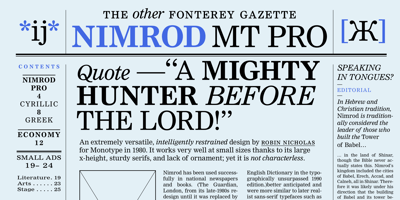
Nimrod
Nimrod font
Nimrod Font Family was designed by Robin Nicholas and published by Monotype. Nimrod contains 11 styles and family package options. An extremely versatile, intelligently restrained design by Robin Nicholas for Monotype in 1980. It works very well at small sizes thanks to its large x-height, sturdy serifs, and lack of ornament; yet it is not characterless. Nimrod has been used successfully in national newspapers and books. (The Guardian, London, from its late-1980s redesign until it was replaced by a Carter interpretation of Miller in 1998; the Concise Oxford English Dictionary in the typographically unsurpassed 1990 edition.)